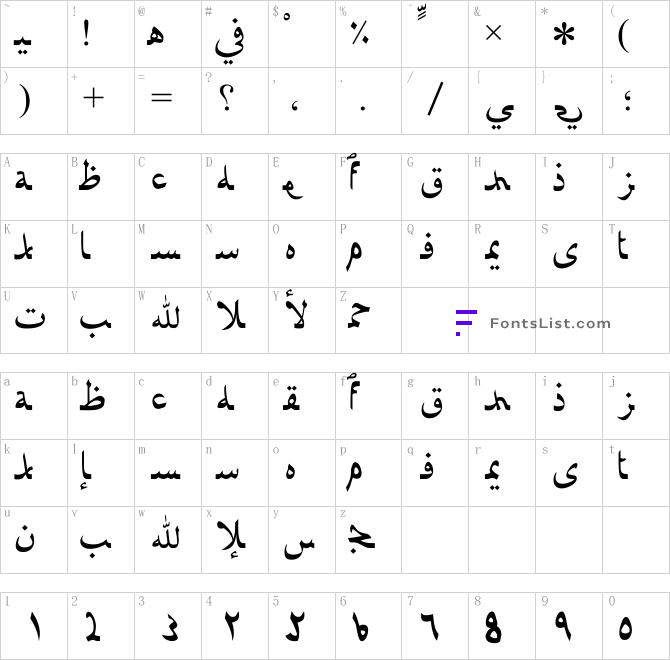
• Font Name:Afarat ibn Blady
• Subfamily:barmee.com Afarat ibn Blady
• Full Name:Afarat ibn Blady
• PostScript:Afarat ibn Blady
Afarat-ibn-Blady.ttf is a very beautiful artistic font, Afarat-ibn-Blady.ttf is widely used in the design and printing of various books and pictures,Afarat-ibn-Blady.ttf has a strong visual impact,Afarat-ibn-Blady.ttf is a commonly used font in newspapers, magazines and books, and is used in posters, e-commerce Poster design, store design, logo design, font design and other fields.Afarat-ibn-Blady.